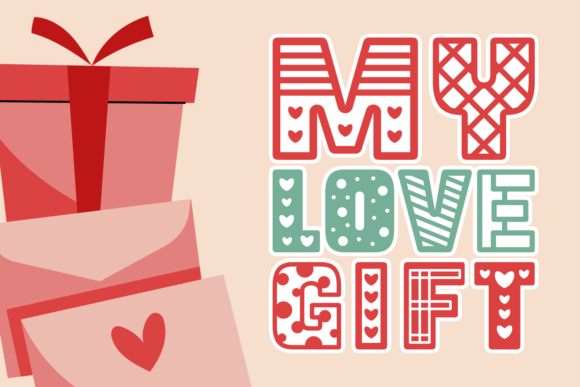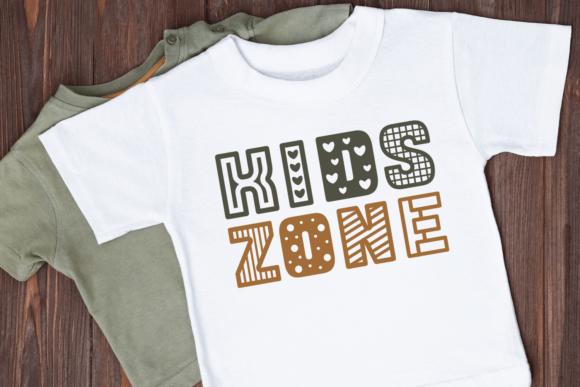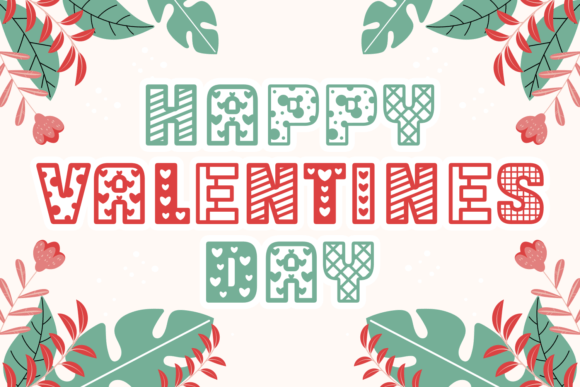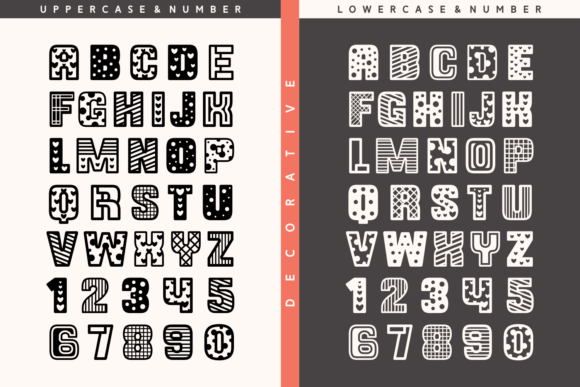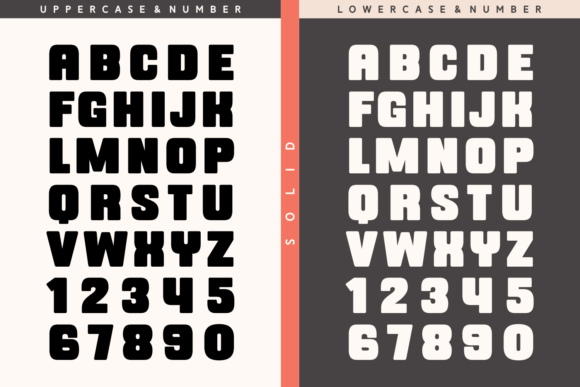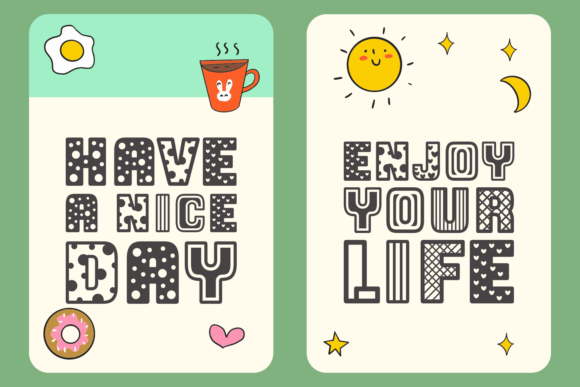
Introduction to Cuted Loven Font
Cuted Loven is an incredibly cool and unique decorative font.
This modern vibe can easily apply to your favorite designs .